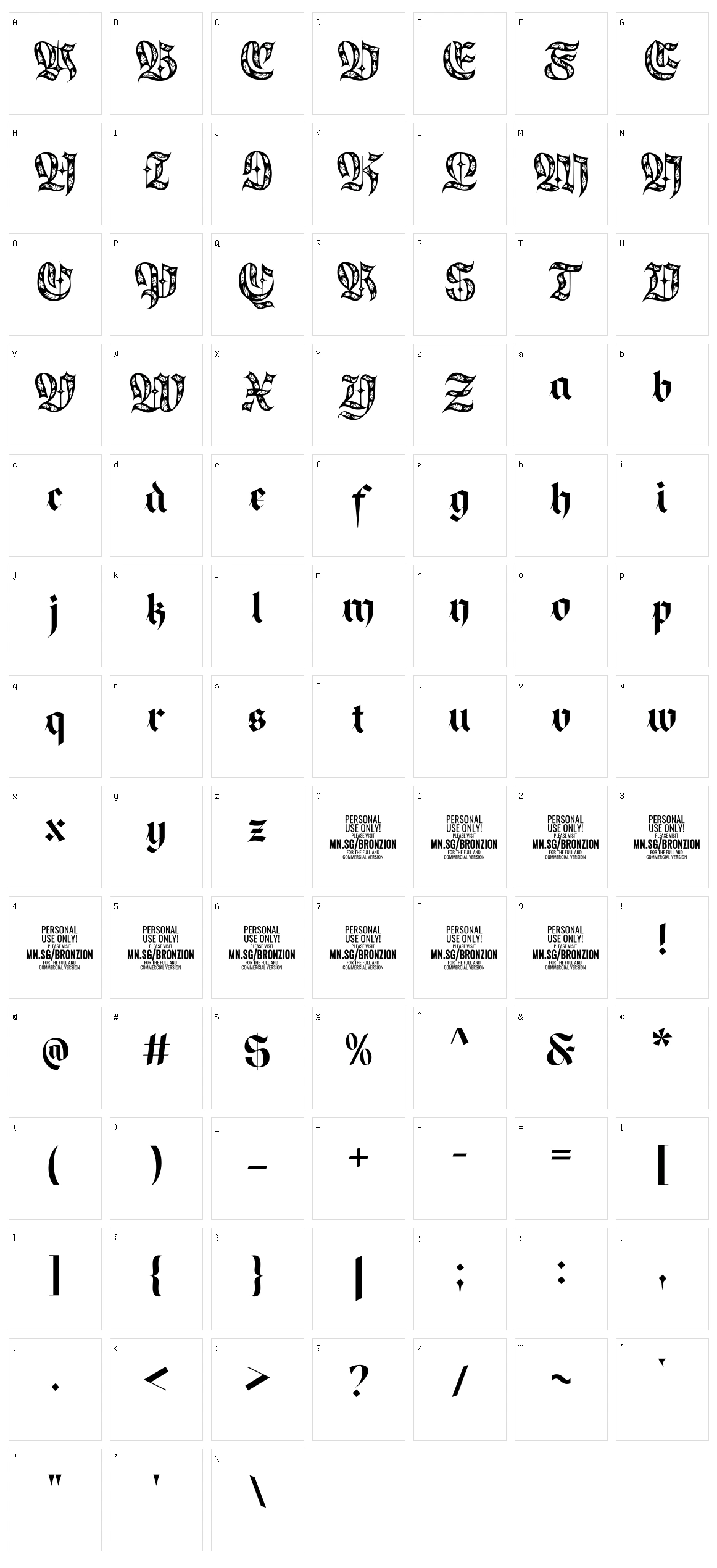
Bronzion Deco
Bronzion Deco is an illuminated blackletter typeface rooted in medieval aesthetics.
With its dark ages inspiration, Bronzion Deco is a captivating blend of calligraphy and heavy metal undertones. The typeface captures the ornamental beauty of middle ages manuscripts while catering to modern design needs. Its heavy, intricate design makes it perfect for projects that require a touch of medieval grandeur.
Bronzion Deco is adorned with large, floral capital letters, making it a decorative masterpiece for ornate projects.
Use characters 🌲🌳🎠🐂🐅🐆🐈🐉🐎🐕🐦🐯🐲🐺👑👸🗡🤴🦁🦅🦇🦌🦎🦓🦖 to create heraldry-like logos and symbols.
Example: Magic🐉Empire
Bronzion Deco is built with advanced OpenType functionality and has a guaranteed top-notch quality, containing stylistic and contextual alternates, ligatures, and more features; all to give you full control and customizability. It has extensive lingual support, covering all Latin-based languages, and includes all the characters and symbols you'll ever need.